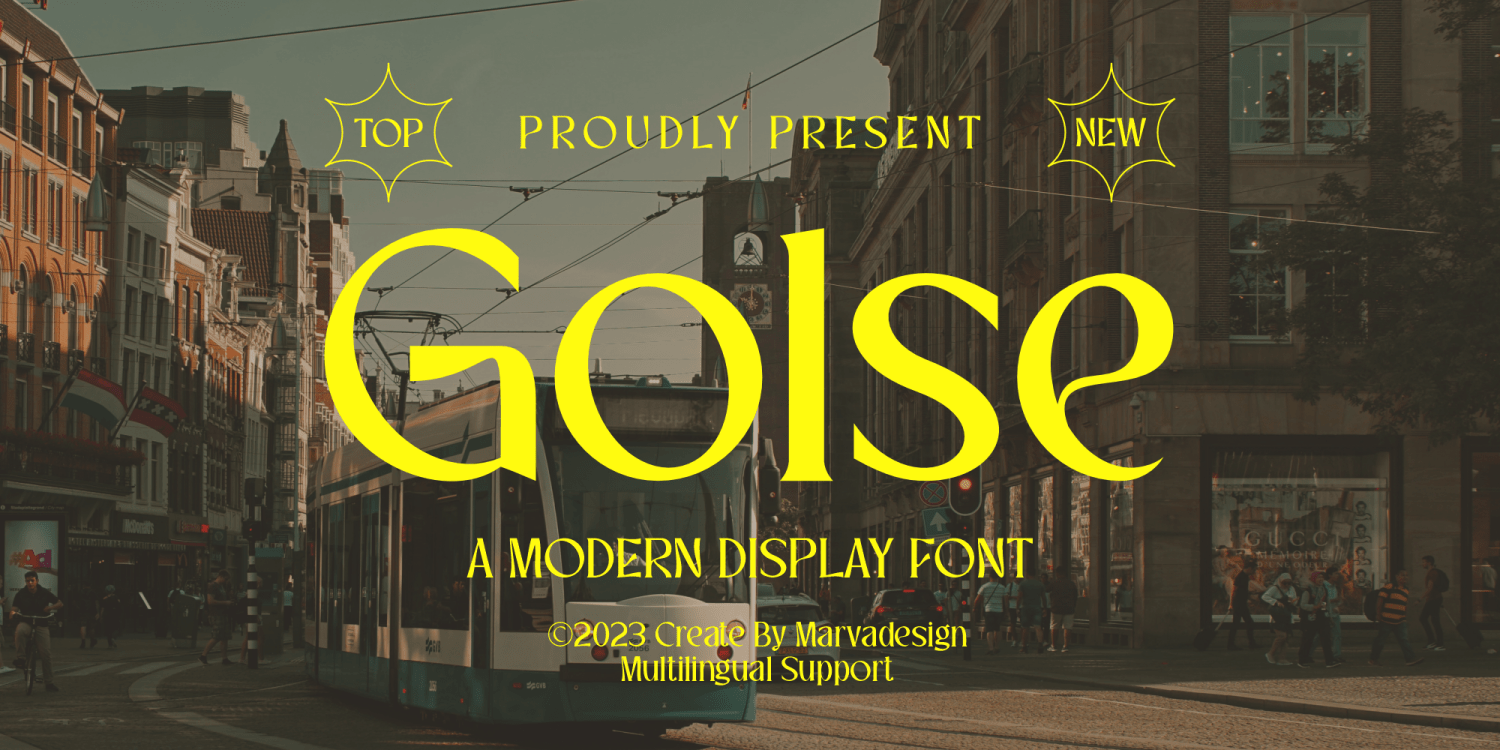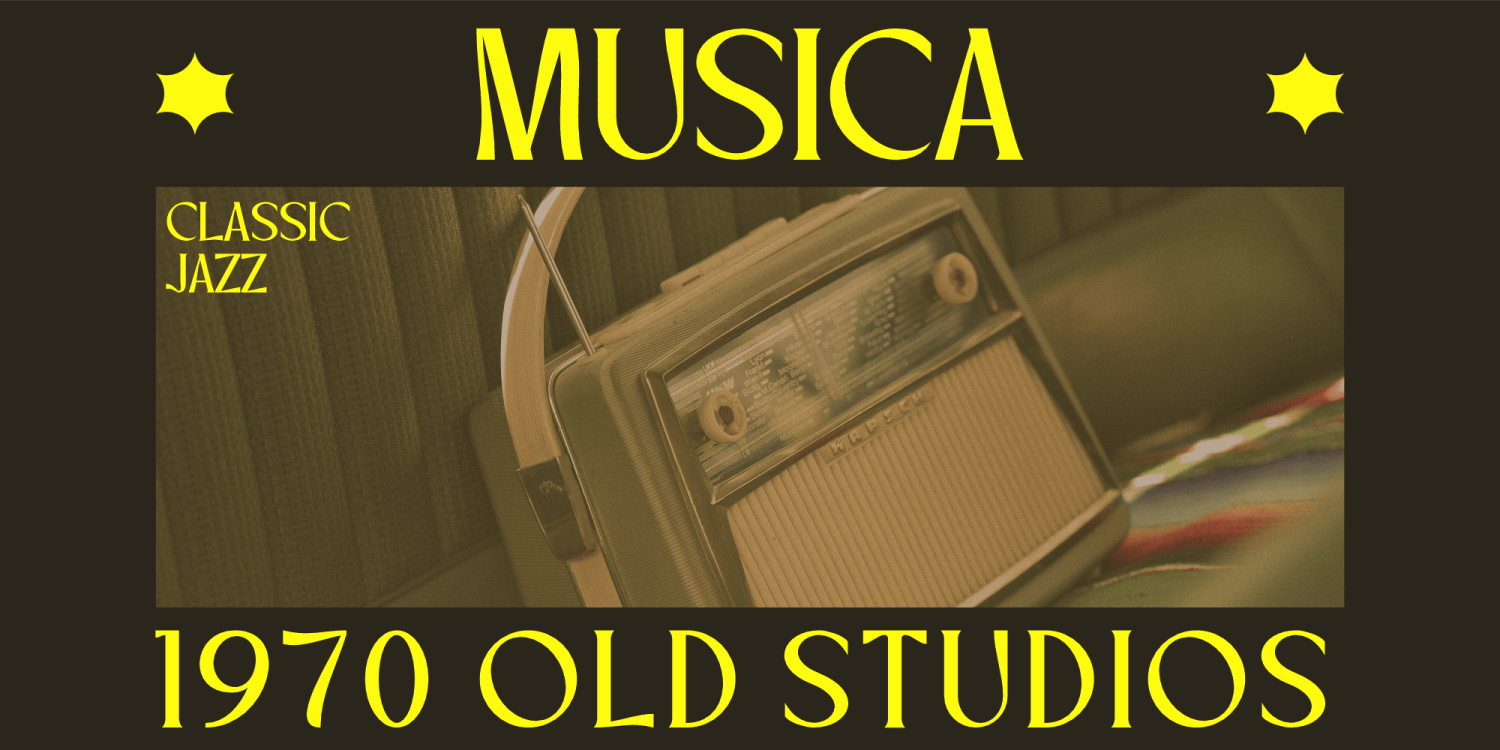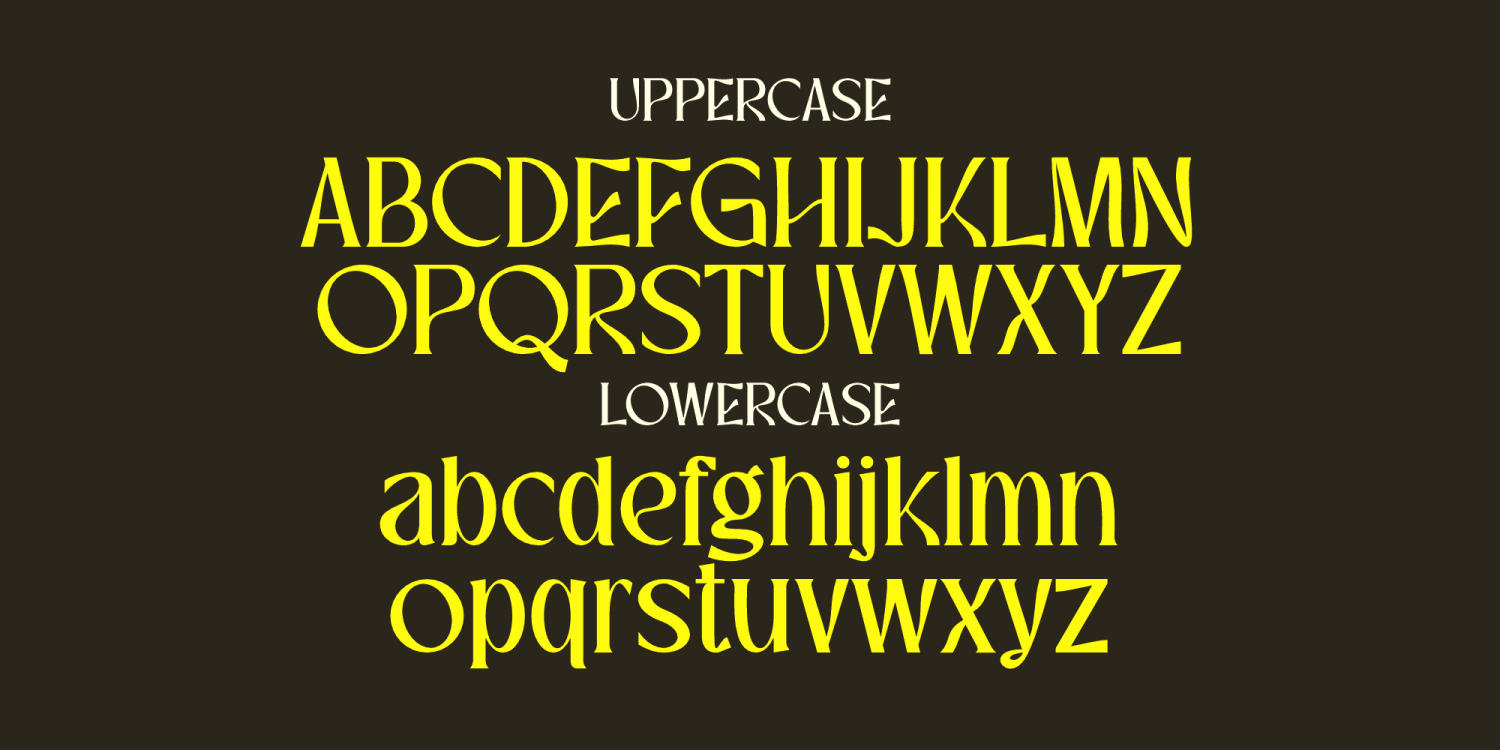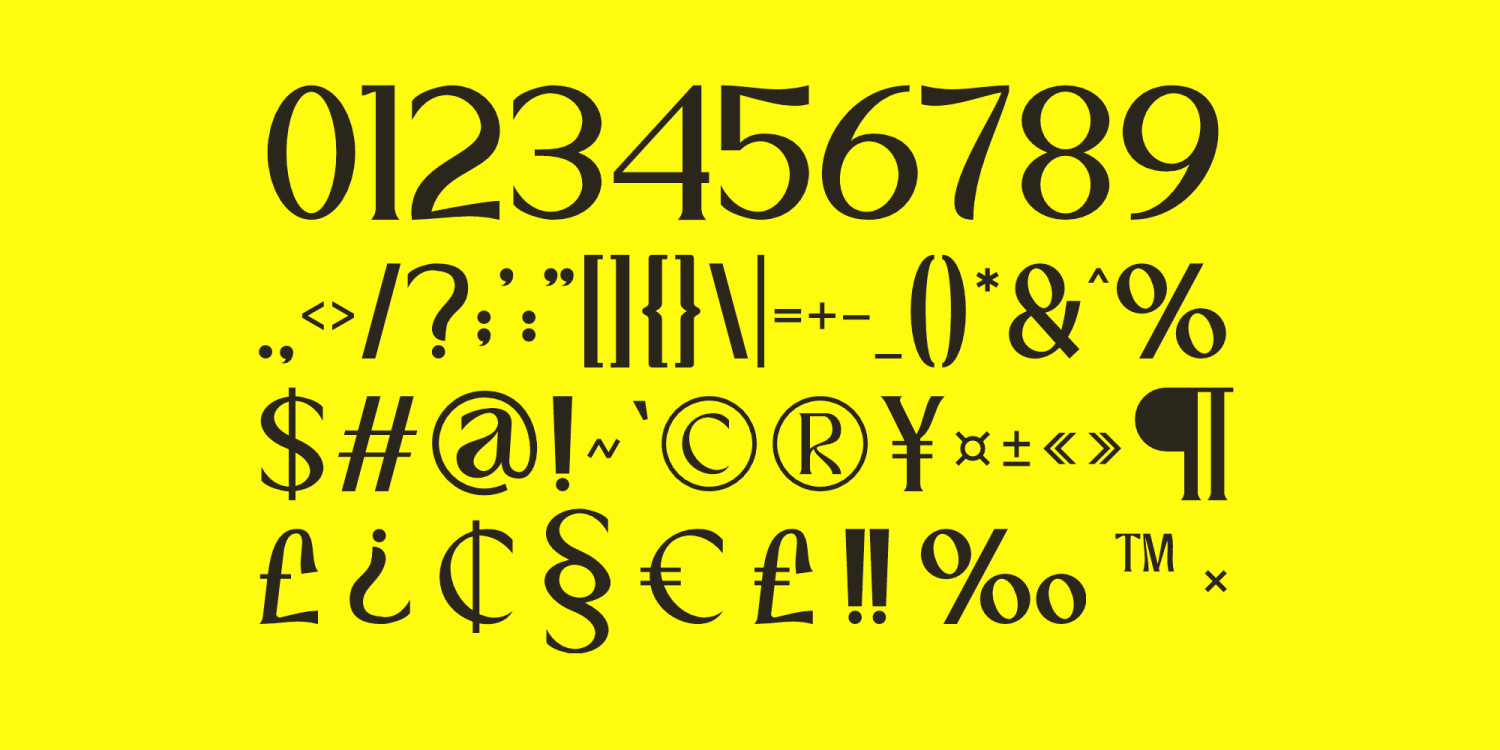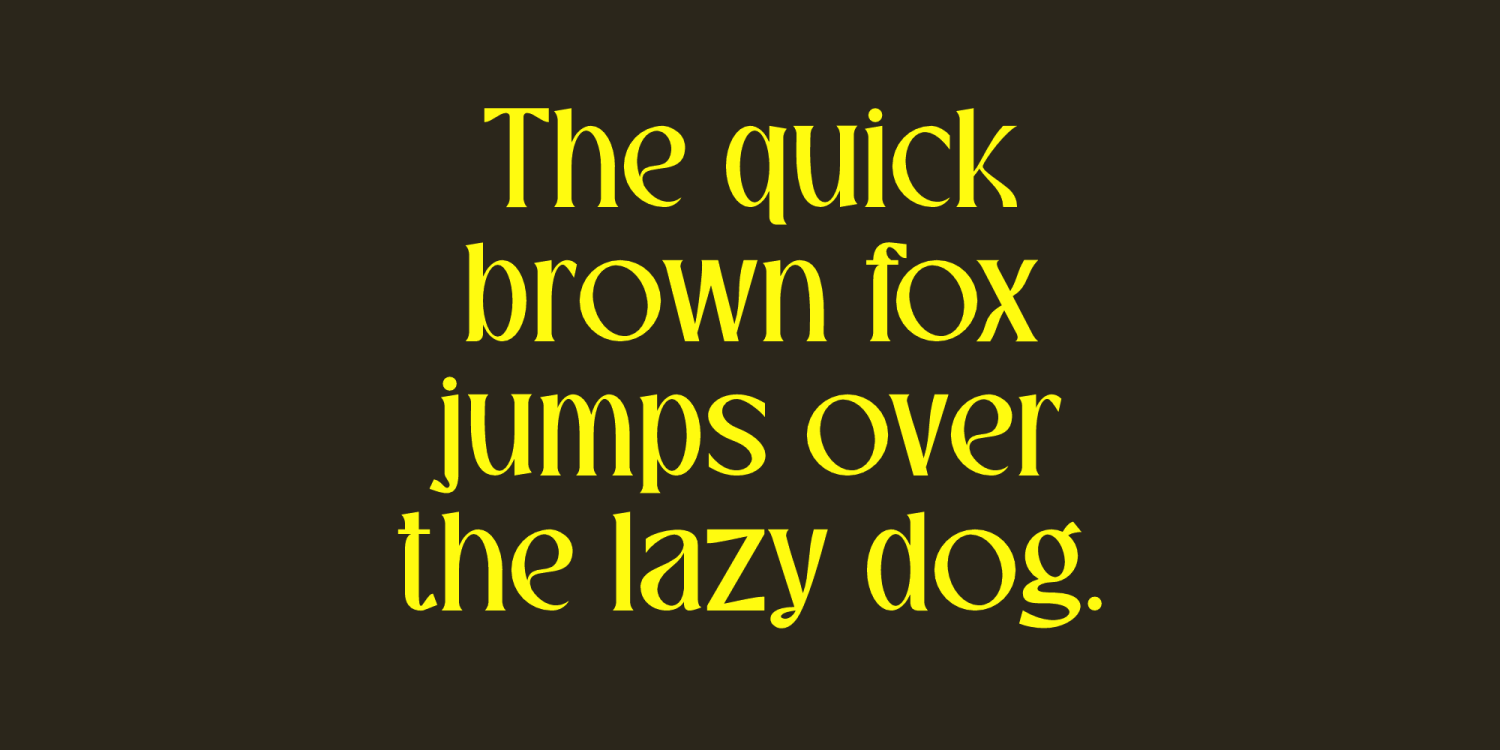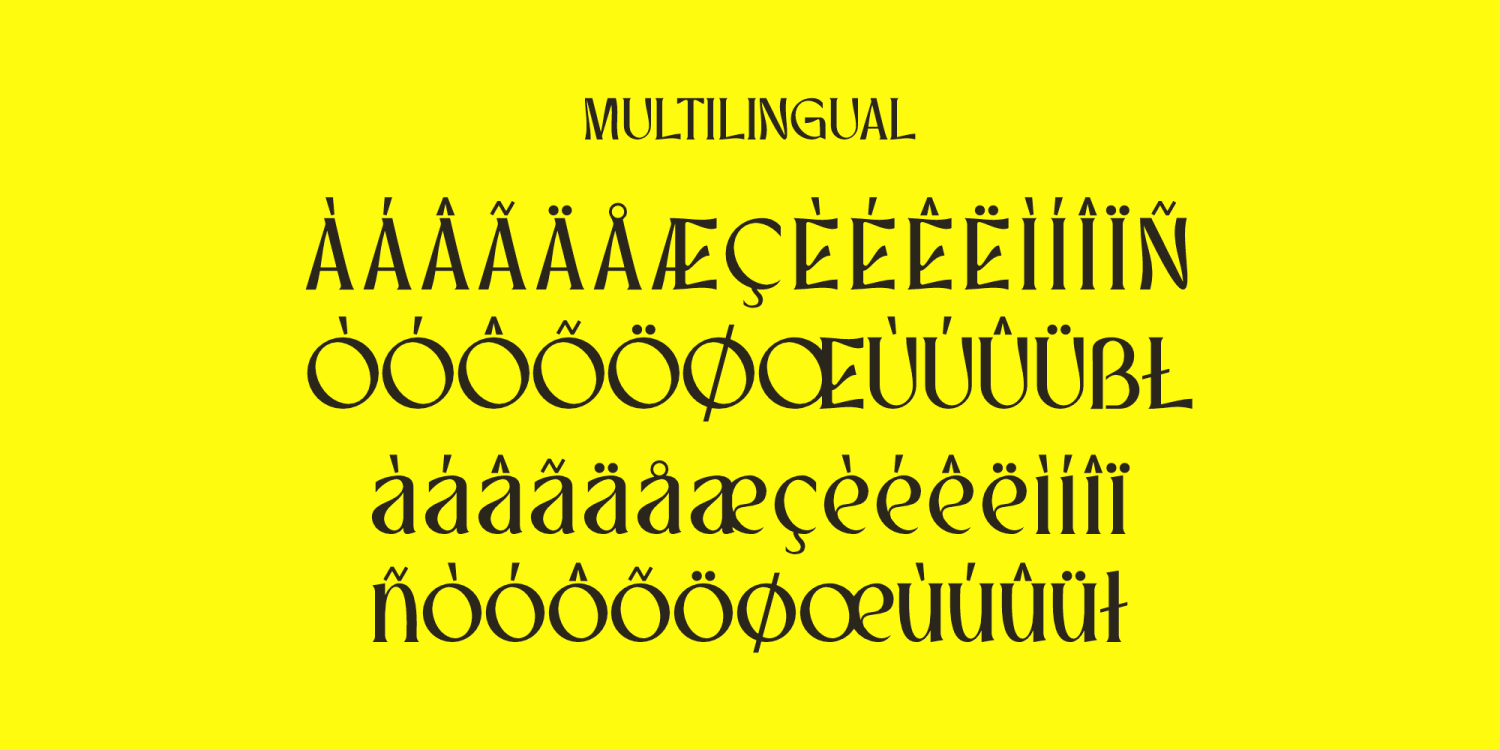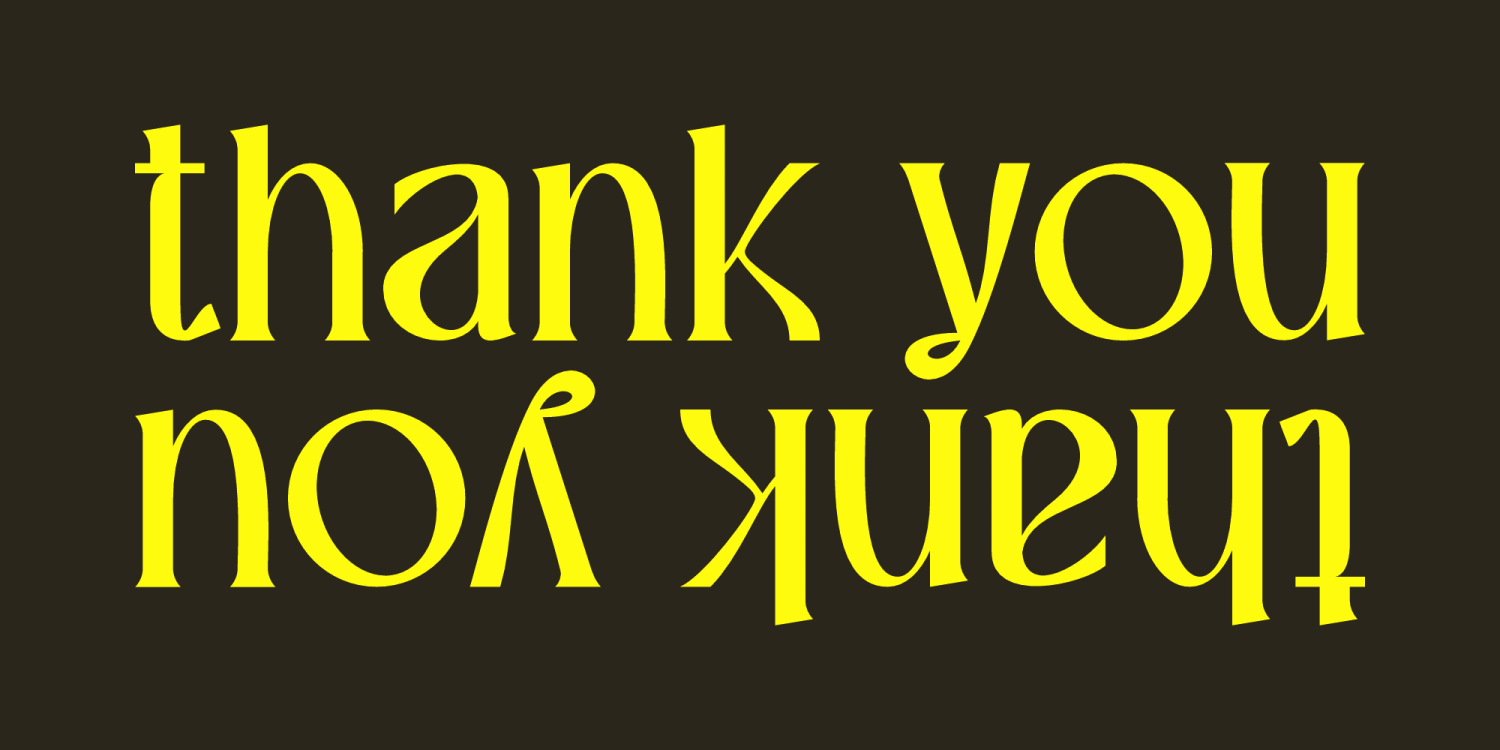
Golse
Font Family by Marvadesign
Introducing Golse is a modern display font that exudes elegance and sophistication through its unique letterforms and distinctive character shapes. It combines classic typography elements with contemporary design, making it highly versatile for a range of creative applications. The font features smooth curves, subtle serifs, and an artistic balance between thick and thin strokes, which contribute to its striking visual appeal. Its uppercase and lowercase letters are designed with a sense of fluidity and harmony, ensuring readability while maintaining a strong personality. Golse is well-suited for branding, editorial designs, posters, and vintage-inspired graphics, adding a touch of refinement and timeless charm to any project. Its multilingual support further enhances its usability, making it a valuable asset for designers worldwide.